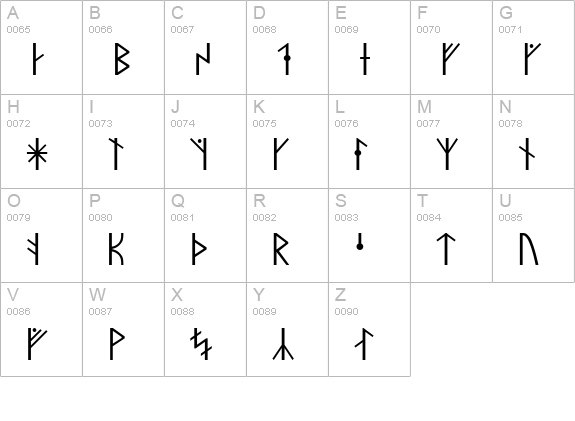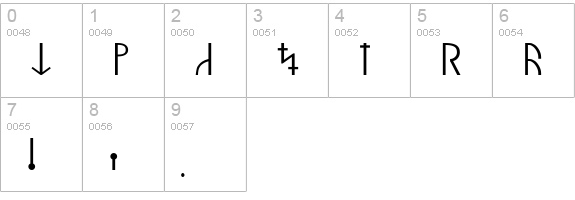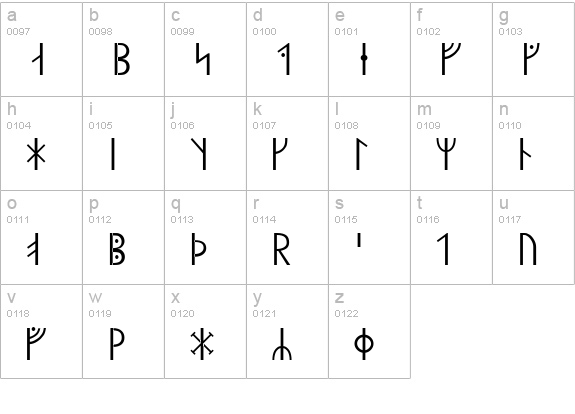
Gullskoen Font Details
Gullskoen font is a stunning display typeface that exudes elegance and charm. Its intricate details and graceful curves make it perfect for adding a touch of sophistication to any design project. This versatile font is ideal for creating eye-catching headlines, branding materials, invitations, and more. The best part? Gullskoen font is completely free to download at FontsMarket.com. Its seamless blend of classic and modern elements will elevate your designs and leave a lasting impression on your audience. Whether you're working on a digital project or a print design, Gullskoen font is sure to make a statement. Download it now and let your creativity soar with this exquisite typeface.